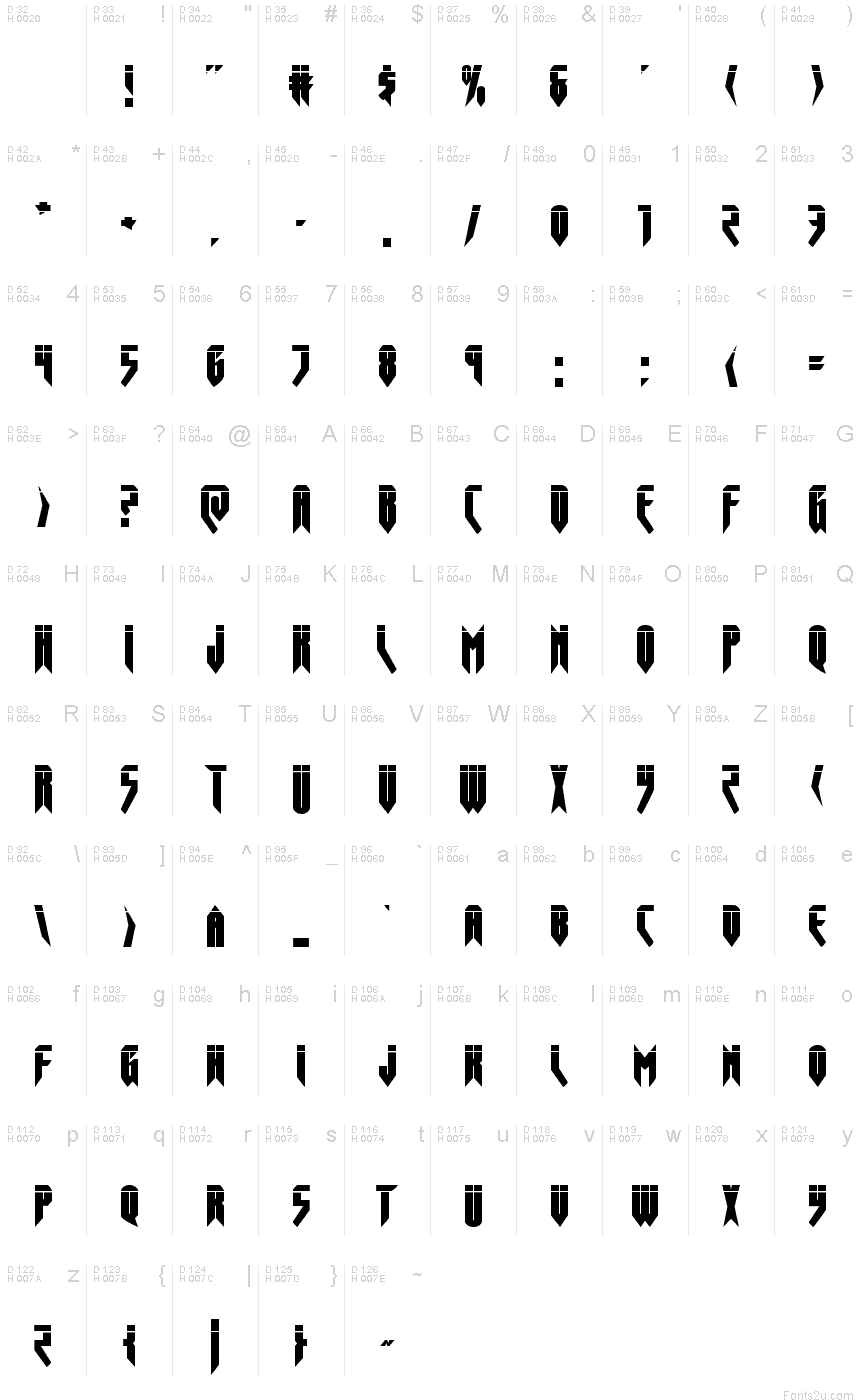
Opus Magnus Laser, designed in 2012 by Iconian Fonts, is a free modern Gothic display font with towering caps and an armored, geometric silhouette. Deep diagonal cuts, divided strokes, and narrow internal spaces push its blackletter structure toward the look of futuristic machinery.
Game packaging is a natural home for its severe, mechanical shapes. Digital graphics and music posters share that science-fiction edge, and in magazines or book covers the sliced letterforms can become part of technical diagrams and mechanical illustration.